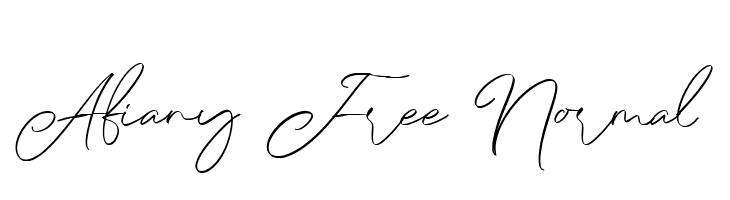
Elegant cursive script font.
A bold, playful outline font with a dynamic, script-like style.
A bold, futuristic italic font with angular, geometric shapes.
A bold, textured font with a rugged, distressed appearance.
A bold, playful, hand-drawn font with a cartoonish and energetic style.
A bold, modern font with distinctive breaks in each character.
A bold, playful font with a three-dimensional outline and whimsical serifs.
A bold, angular font with a futuristic and dynamic style.
A playful, casual handwritten font with fluid strokes and a friendly vibe.
设计师偏爱 Bofly, LichteGraphicCAT, Liberty Island Laser Italic, FastTime and Burgerbuzz,因为其造型干净、适用范围广—— 从品牌识别到落地页、海报都能胜任。